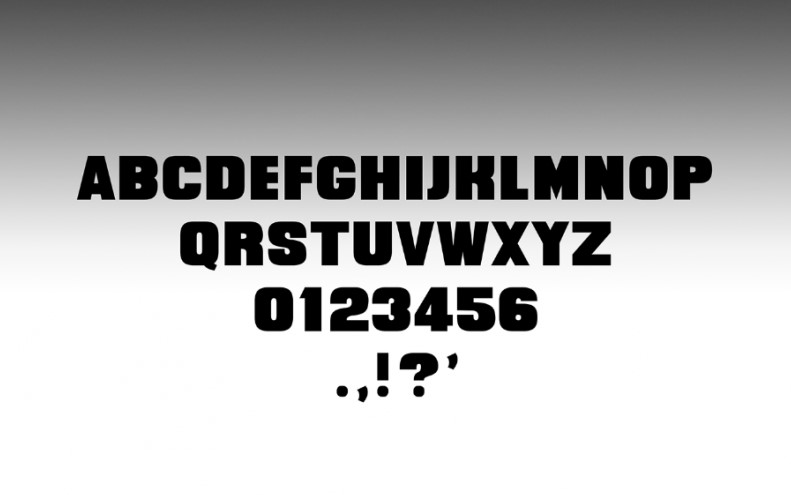
Quittance Font
Quittance Font is a blinker typeface that is quite similar to the monumento font and it is available for free personal use.
Reshaped and optimized for the net, with extra open counters and superior stems to make certain that Bevan services as a very-formidable show font this is much likeĀ amorica font in shape surprisingly-cutting-edge browsers.
Style of Quittance Font Free